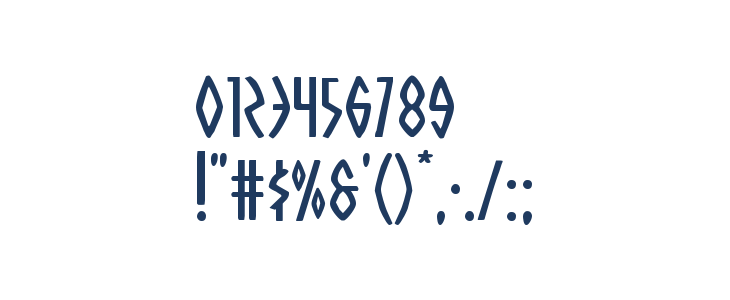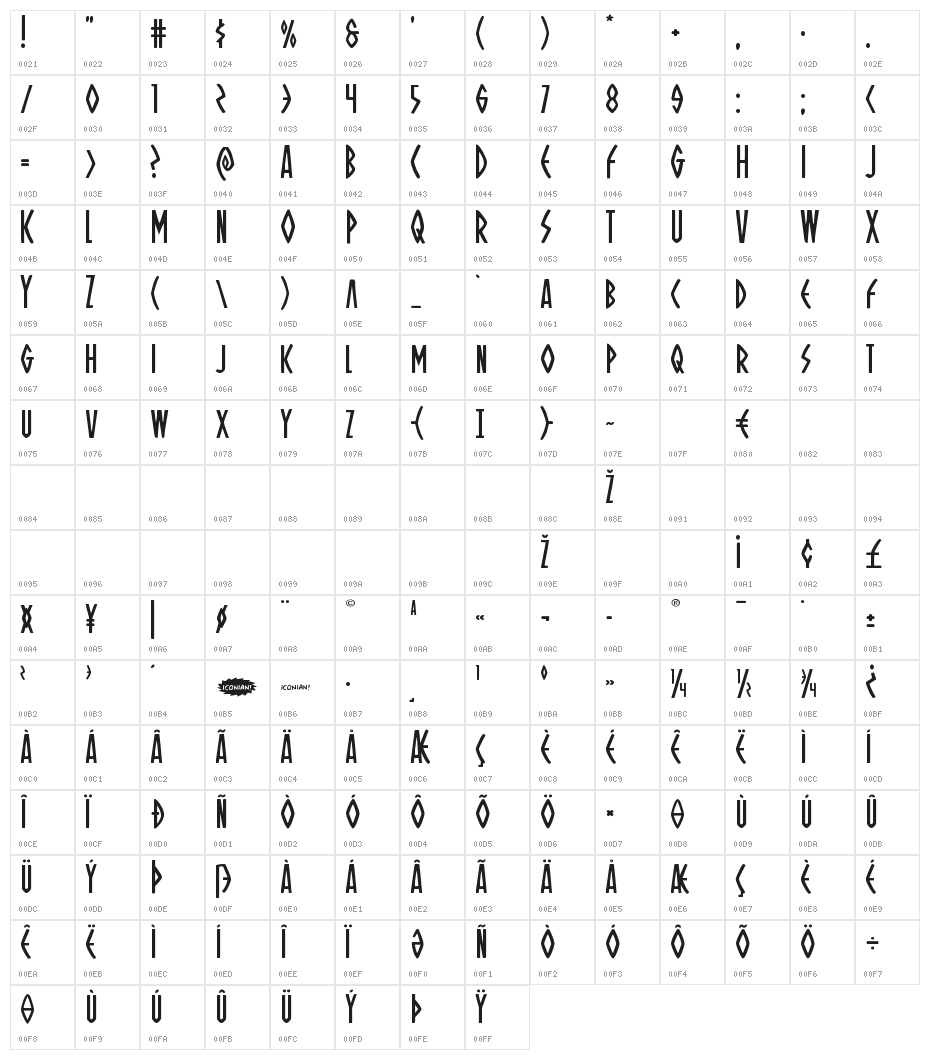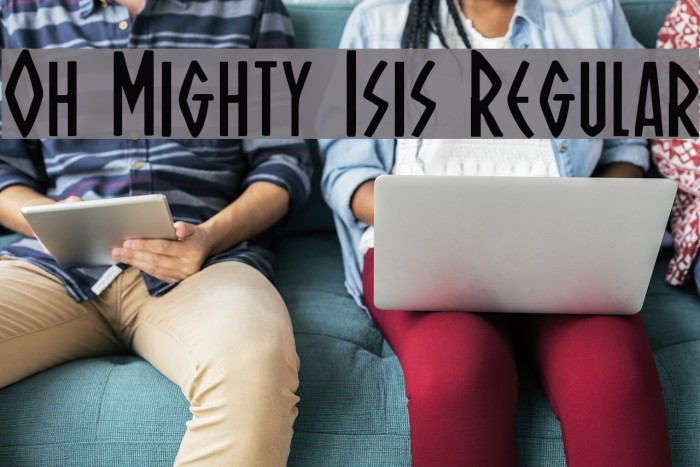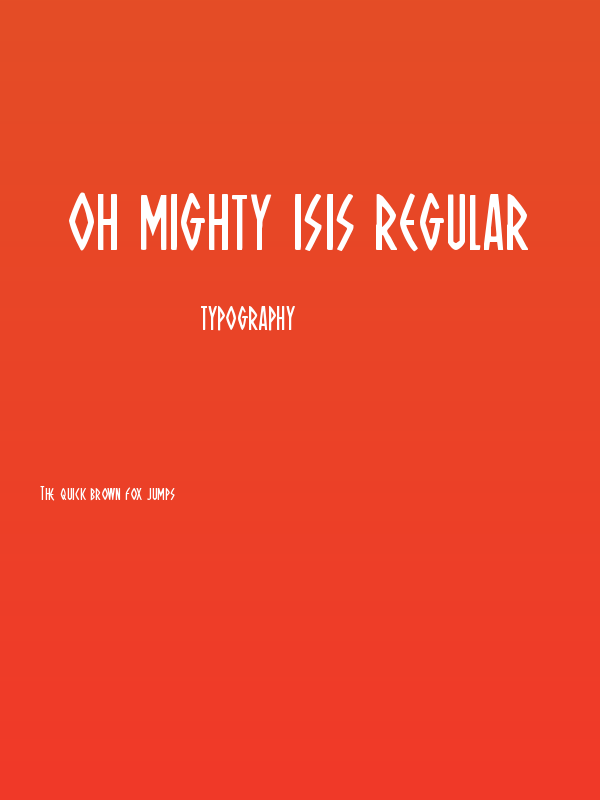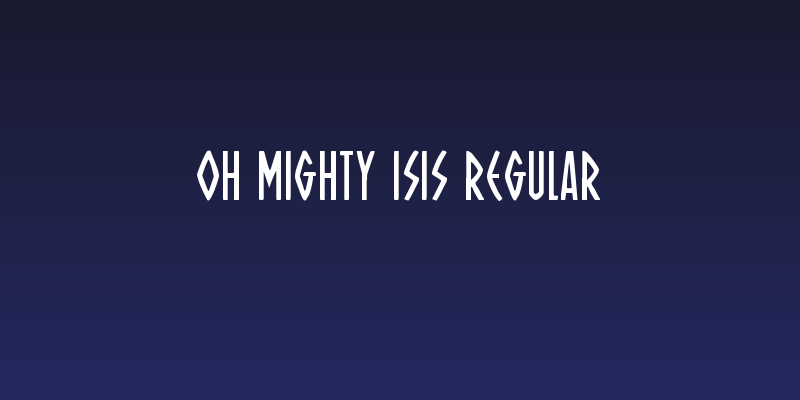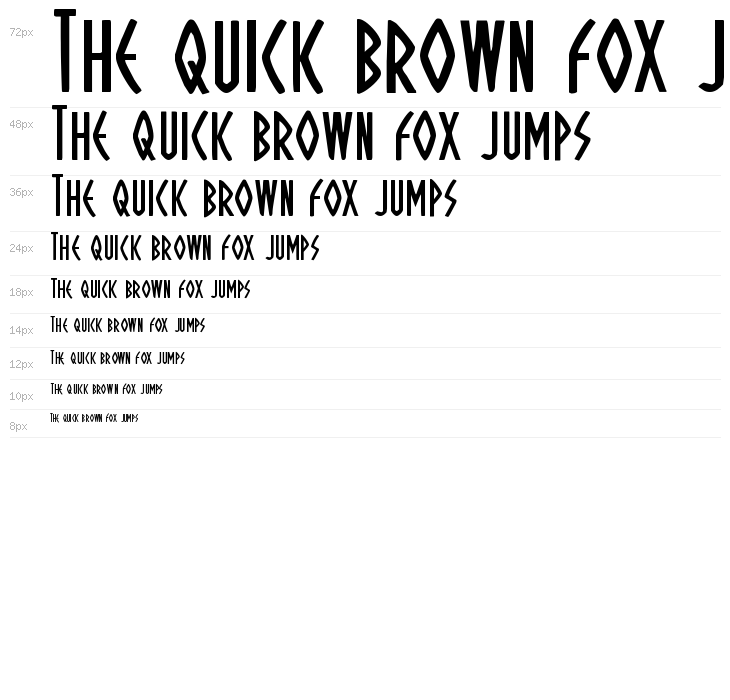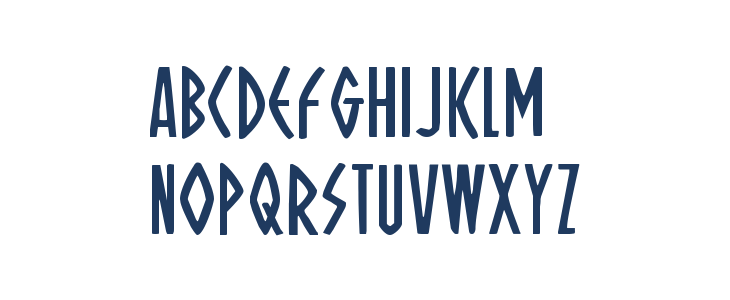
Oh Mighty Isis Regular Font
Oh Mighty Isis Regular Description
This font features a bold and striking design with elongated, angular characters that convey a sense of strength and modernity. The uppercase letters are tall and narrow, with sharp edges and a geometric style that adds a dynamic feel. The lowercase letters maintain the same angular aesthetic, ensuring consistency throughout the typeface. Numbers and special characters are designed with similar sharpness and boldness, making them stand out effectively. The overall appearance is both decorative and functional, suitable for making a strong visual impact.